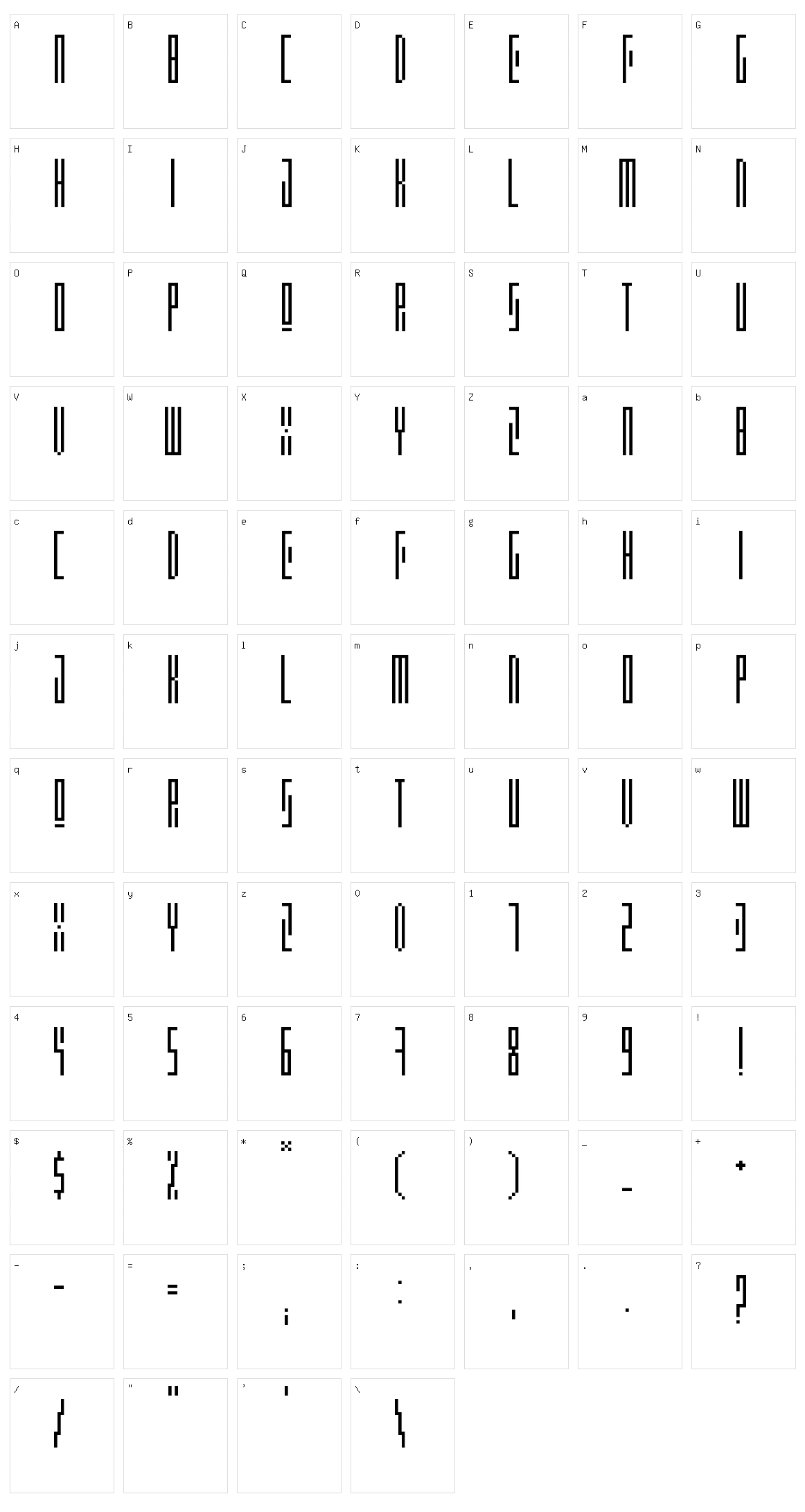
The free font AWSM is carefully designed by Jæn, showcasing a thoughtful balance of creativity and usability and falls under the Square font style. When you download the ZIP file, it contains only 2.45 KB of font files, making it lightweight and quick to download. Please review the license details below to understand permitted usage and distribution rights. If license information is not available, we recommend using this font for personal projects only or contacting the author directly for commercial usage permissions.